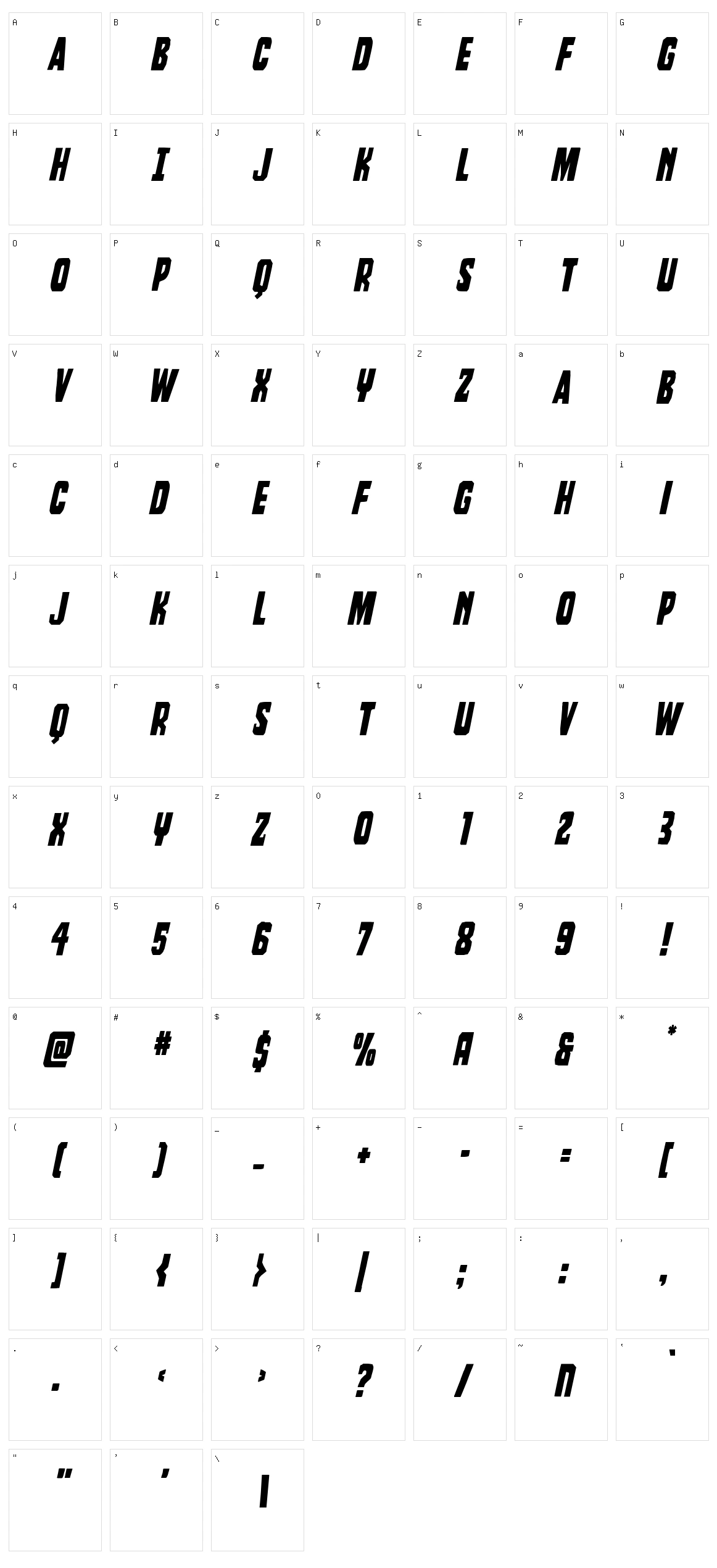
This font comes with the following 24 versions: Regular, Italic, Semi-Italic, Super-Italic, Semi-Leftalic, Semi-Leftalic, Condensed, Condensed Italic, Expanded, Expanded Italic, Wide, Wide Italic, 3D, 3D Italic, Rotated, Rotated 2, Rotalic, Rotalic 2, Wavy, Wavy Italic, Wavy 2, and Wavy 2 Italic.